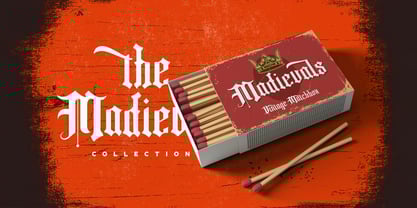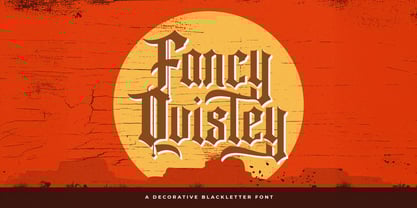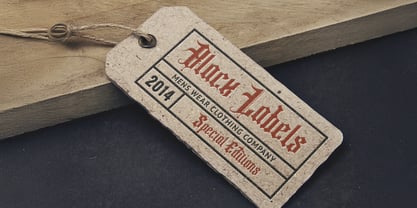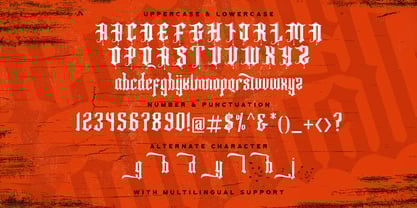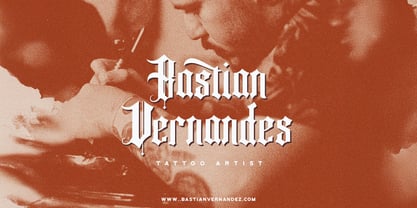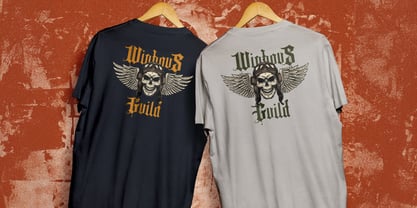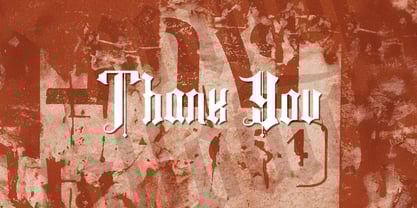
Fancy Quisley
by Stringlabs Creative Studio
The Fancy Quisley Font Family was designed by Virgiawan Listanto and published by Stringlabs Creative Studio. Fancy Quisley contains 1 styles. More about this family
Fancy Quisley is a bold and stylish Blackletter font that combines classic Gothic influences with a modern flair. With its intricate, sharp details and distinctive strokes, this font brings an air of sophistication and historical charm to your designs.
Designers: Virgiawan Listanto
Foundry: Stringlabs Creative Studio